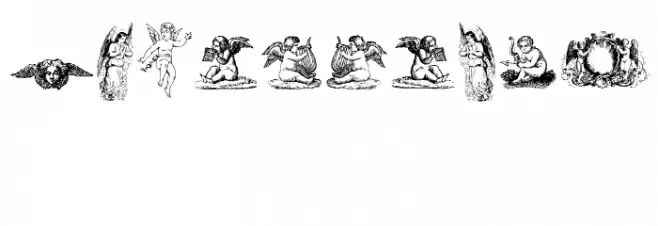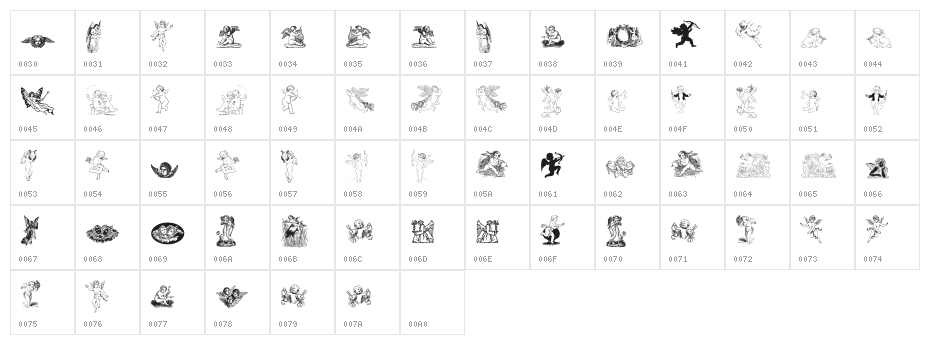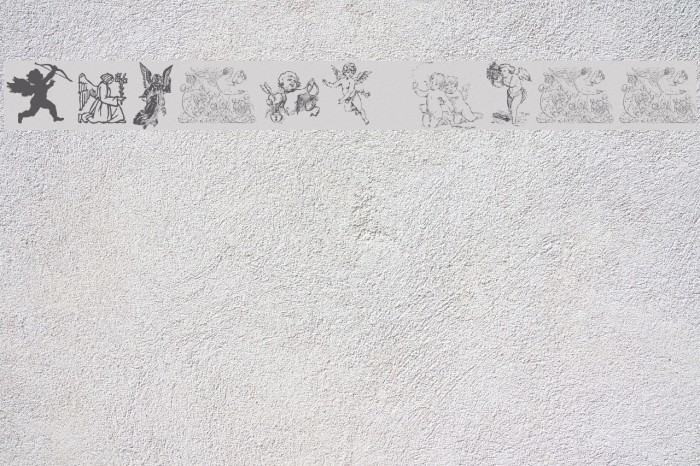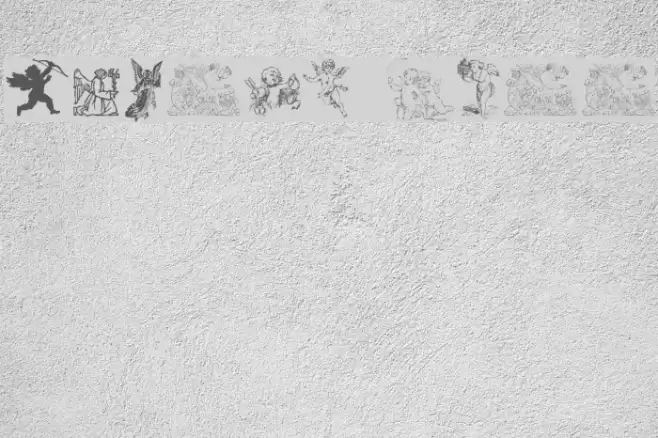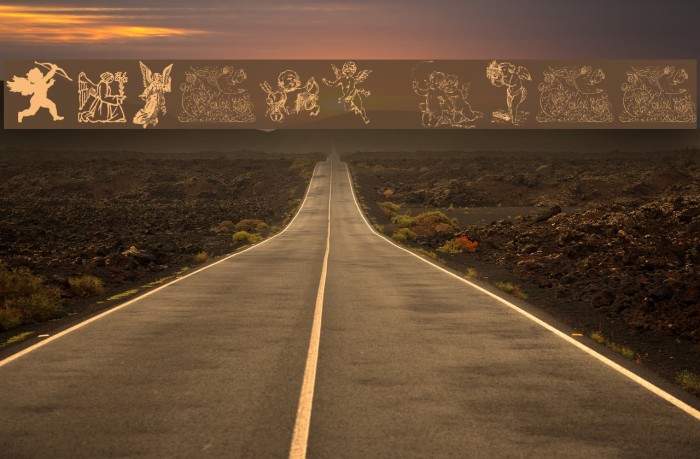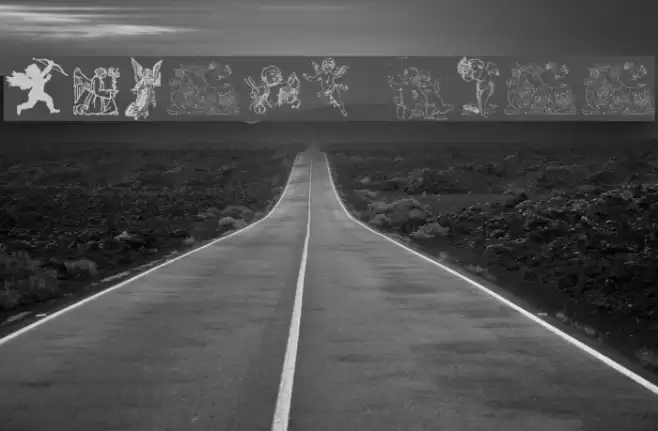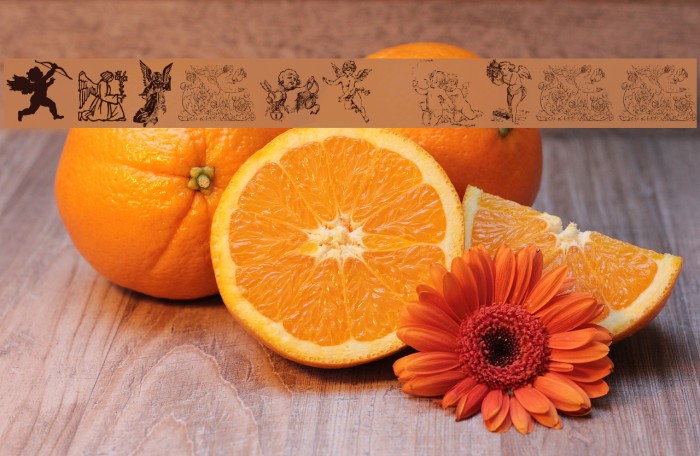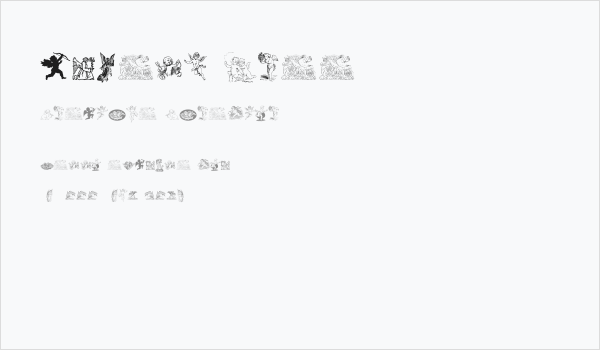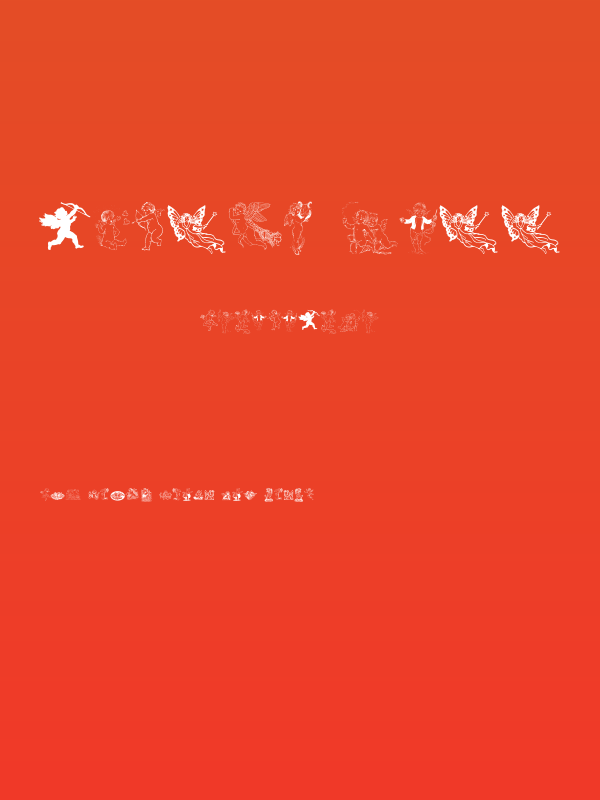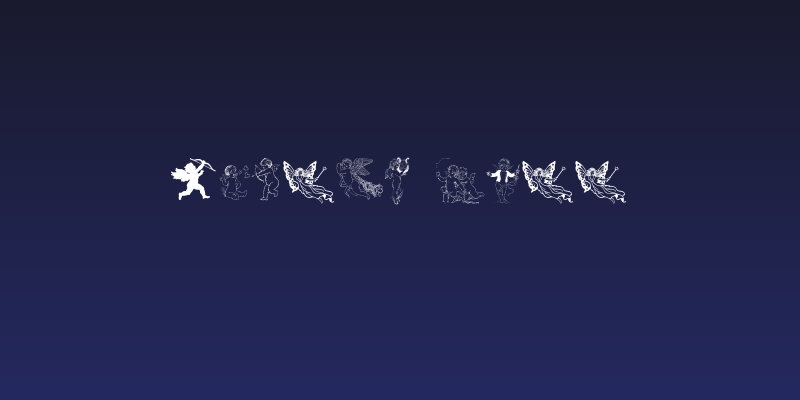
Angels Free Font
Angels Free Description
A decorative dingbat font featuring detailed illustrations of cherubs and angels in various poses and activities, rendered in a classic, engraved style with intricate line work and shading.
| Overall Style | Vintage, Decorative |
| Use Case | Decorative elements, Borders, Themed graphics |
| Proposed Projects | Holiday cards, wedding invitations, vintage-themed posters, scrapbooking, decorative borders, and religious materials. |